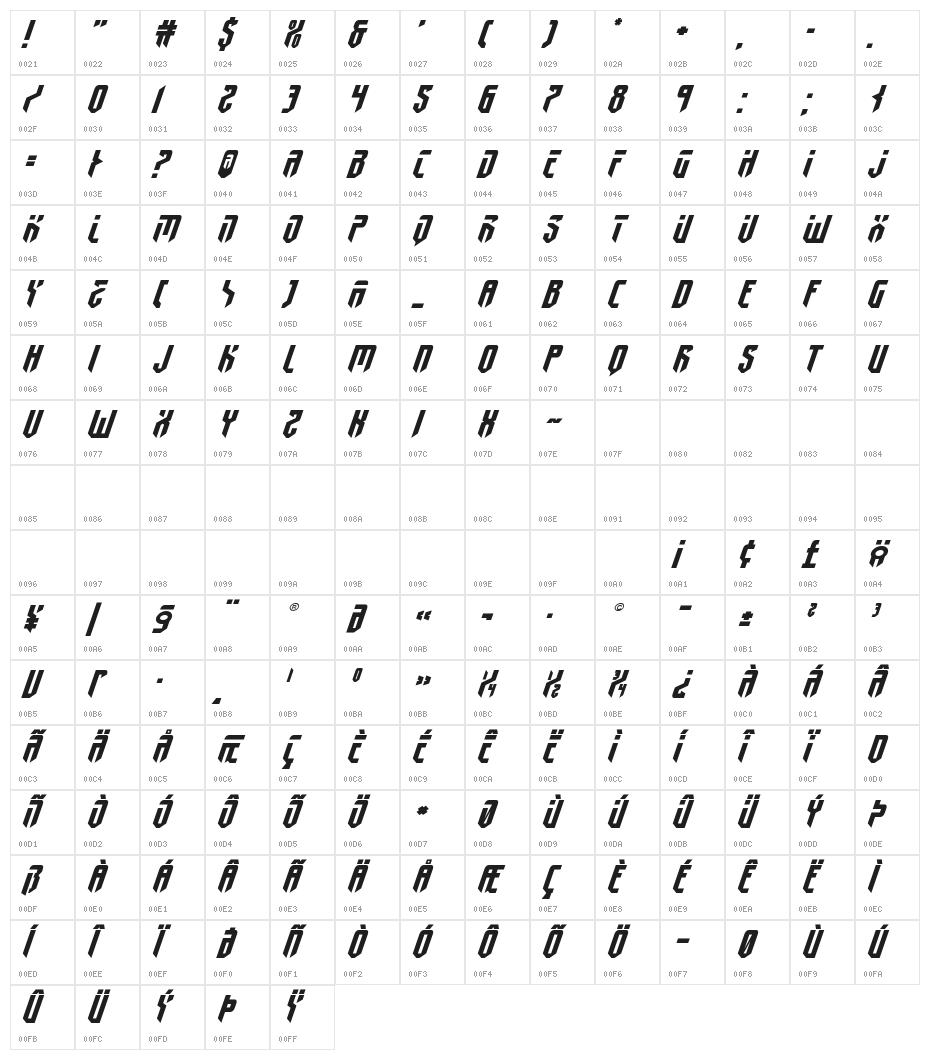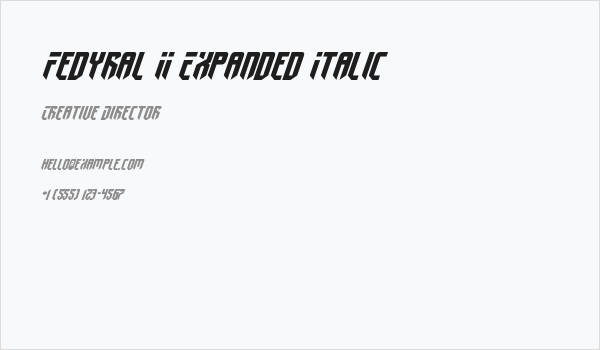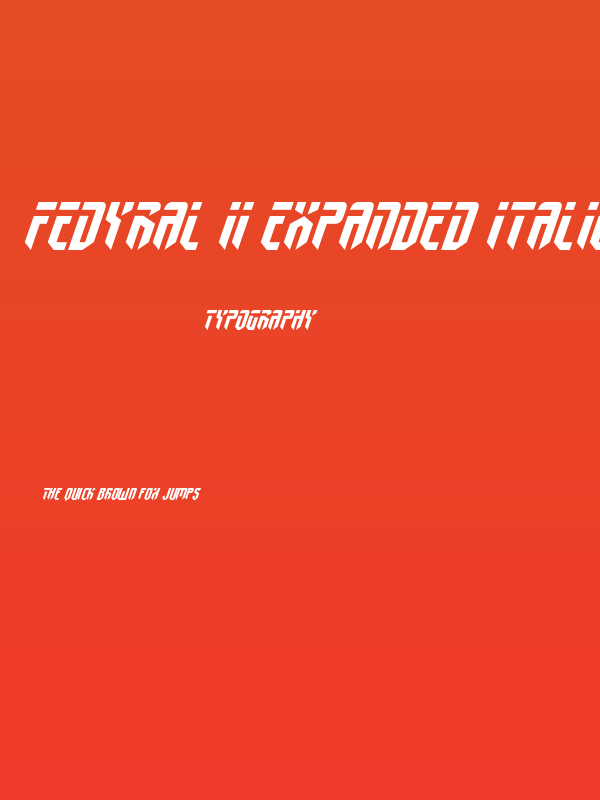
Fedyral II Expanded Italic Font
Fedyral II Expanded Italic Description
This font features a bold, italicized style with a futuristic and dynamic appearance. The characters are sharply angled, giving them a sense of motion and energy. The expanded width of the letters enhances their presence, making them stand out prominently. The font has a geometric structure with consistent stroke thickness, providing a uniform and cohesive look. The sharp edges and angular shapes contribute to its modern and edgy aesthetic, making it suitable for projects that require a strong visual impact.
| Proposed Projects | Ideal for branding, sports team logos, video game titles, and sci-fi themed designs. |